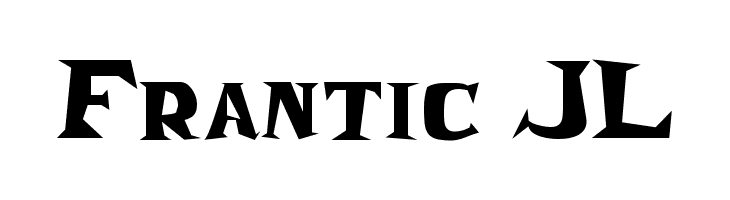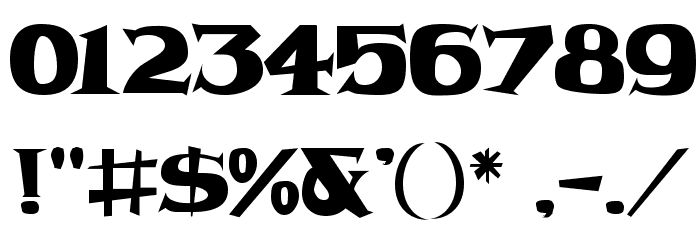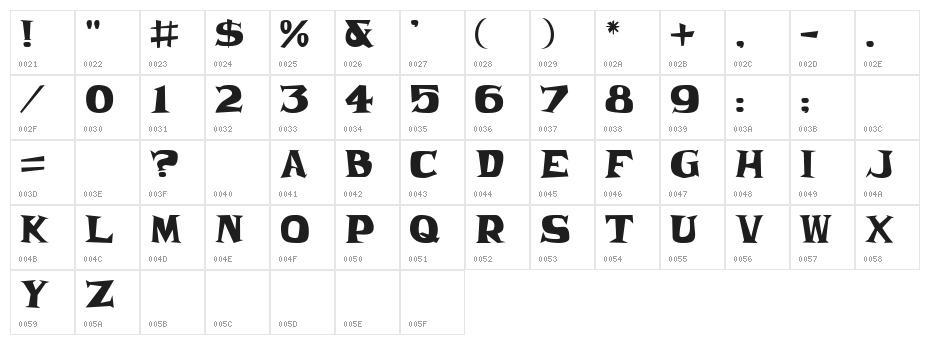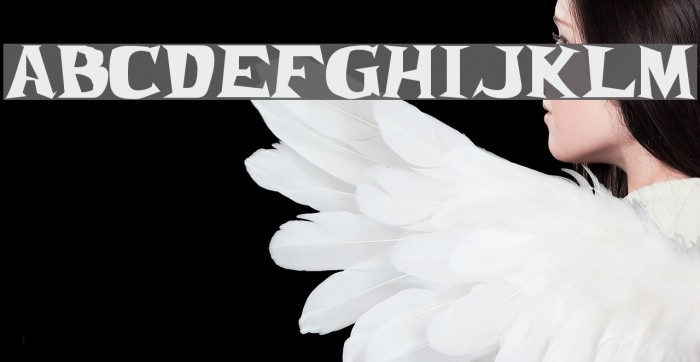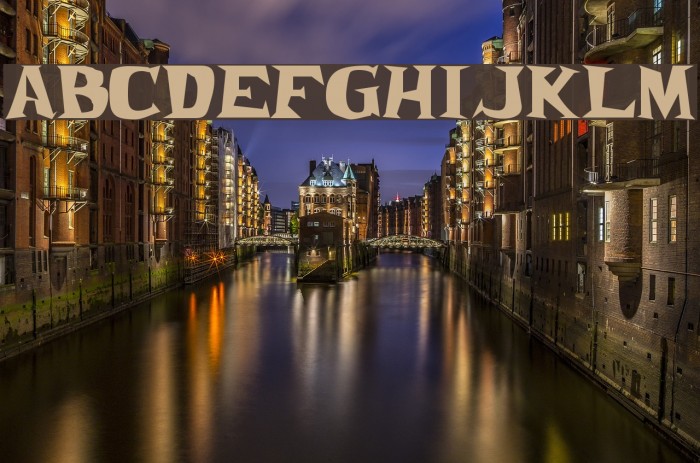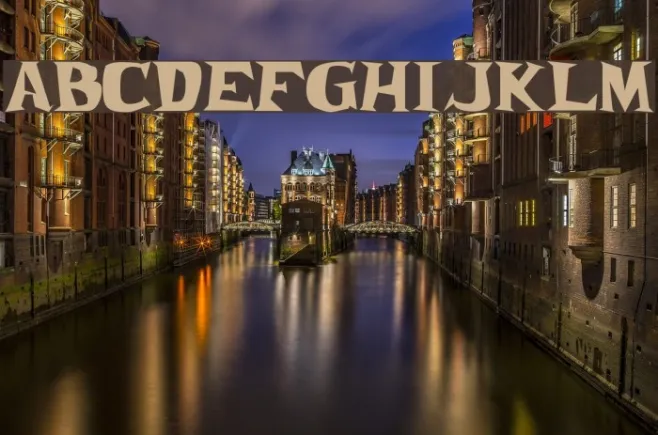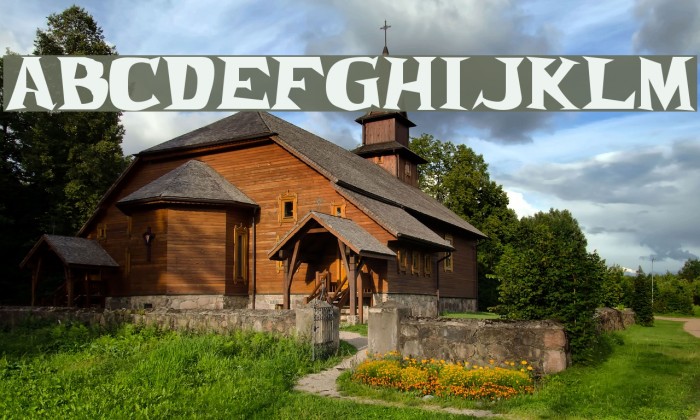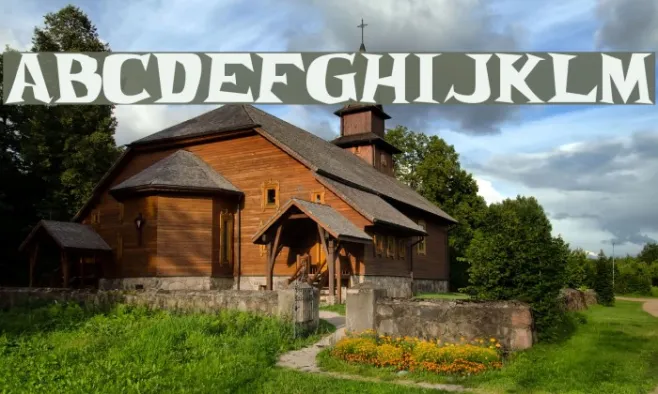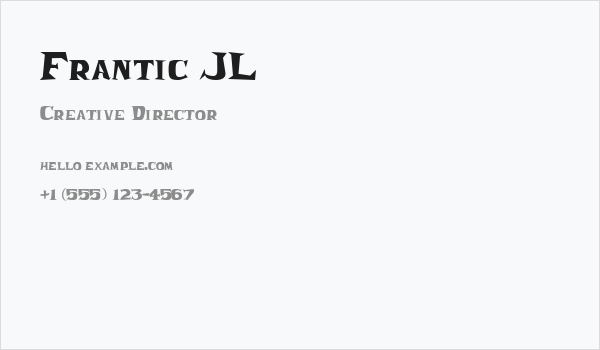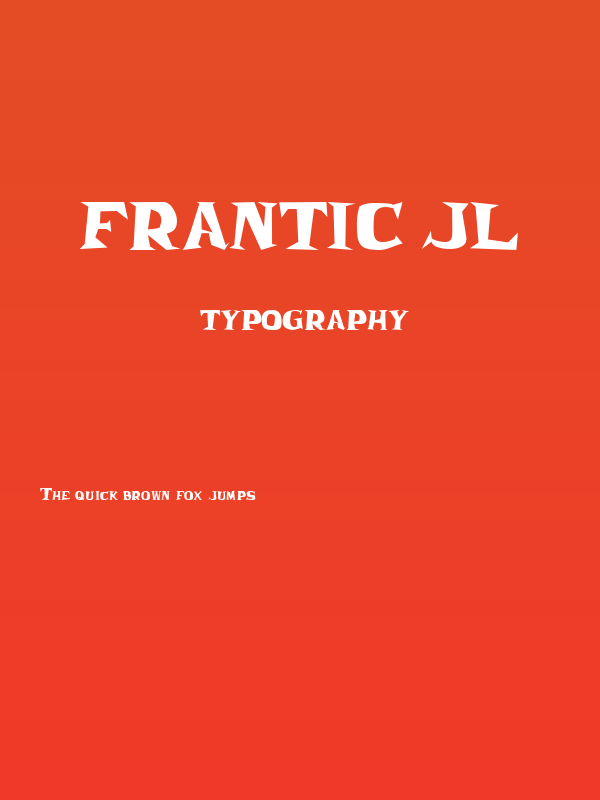
Frantic JL Font
Frantic JL Description
This font features a bold and dynamic design with sharp, angular edges and a distinct geometric flair. The uppercase letters are characterized by their aggressive, pointed serifs and strong vertical strokes, giving them a commanding presence. The lowercase letters maintain the same angular style, providing a cohesive look across the typeface. Numbers and special characters are equally bold, with unique shapes that stand out, making them ideal for attention-grabbing designs. The overall style is reminiscent of modern, edgy aesthetics, perfect for projects that require a strong visual impact.
| Overall Style | Modern, Edgy |
| Proposed Projects | Ideal for posters, album covers, branding, and any design requiring a bold statement. |